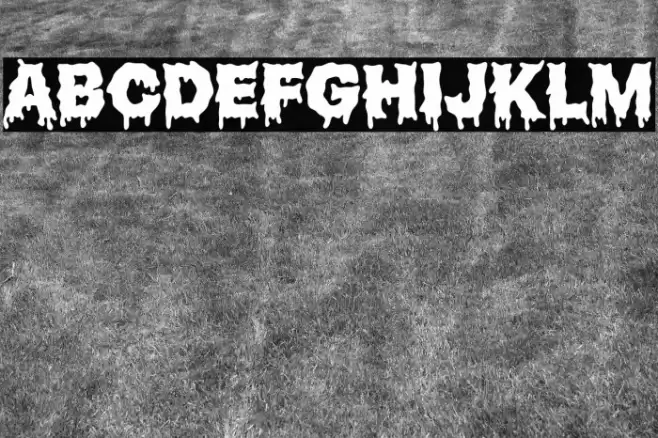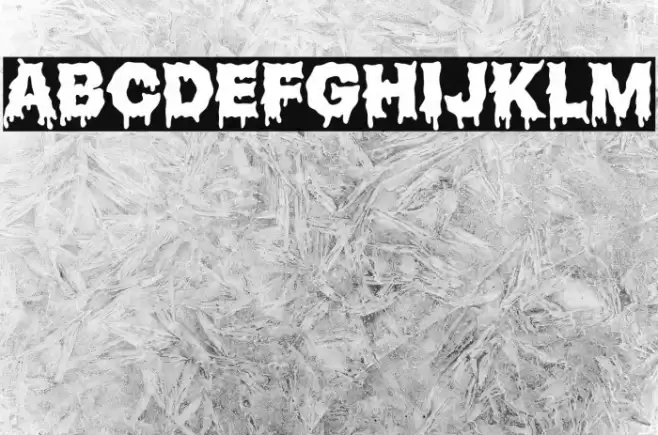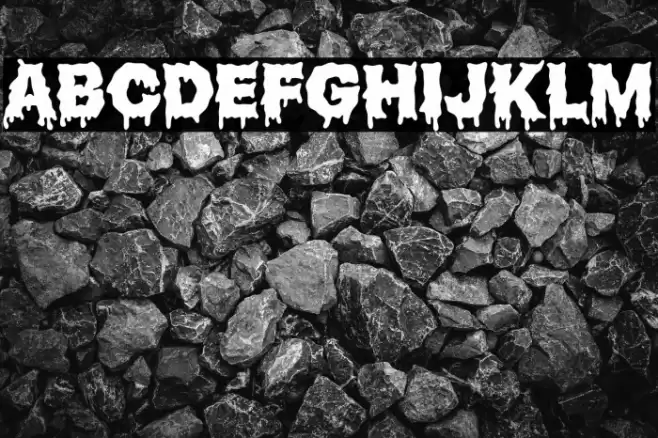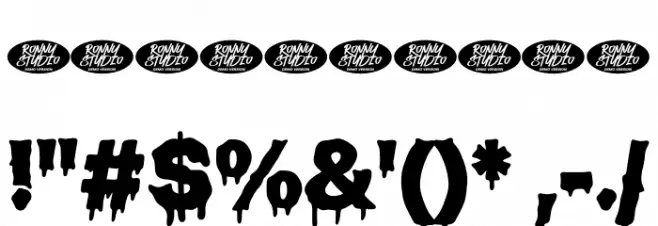
Zombie Hunger DEMO Font
Zombie Hunger DEMO Description
A bold, dripping, horror-inspired display font with irregular edges and a liquid effect, evoking a sense of gore or slime. The characters are heavy and blocky, with exaggerated drips extending from the bottom of each letter and symbol.
A bold, dripping display font ideal for horror or Halloween themes.
- Font: Zombie Hunger DEMO
- Proposed Projects: Halloween posters, horror movie titles, haunted house flyers, themed party invitations, spooky branding.
- Overall Style: Decorative, Horror, Grunge
- Use Case: Headlines, Posters, Logos, Event Flyers